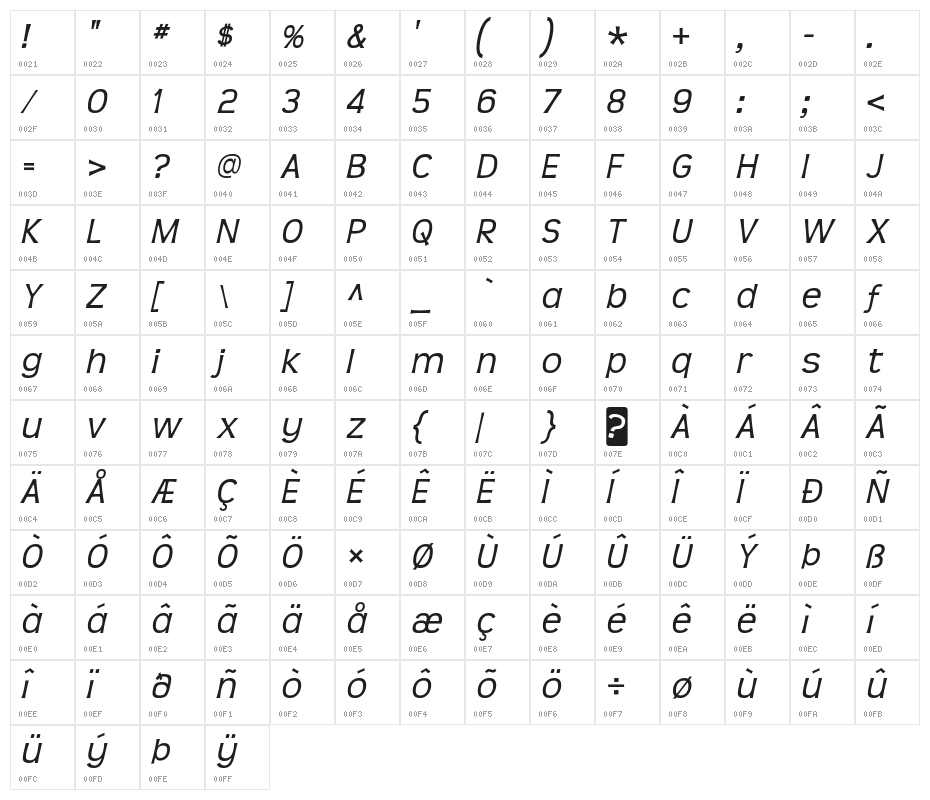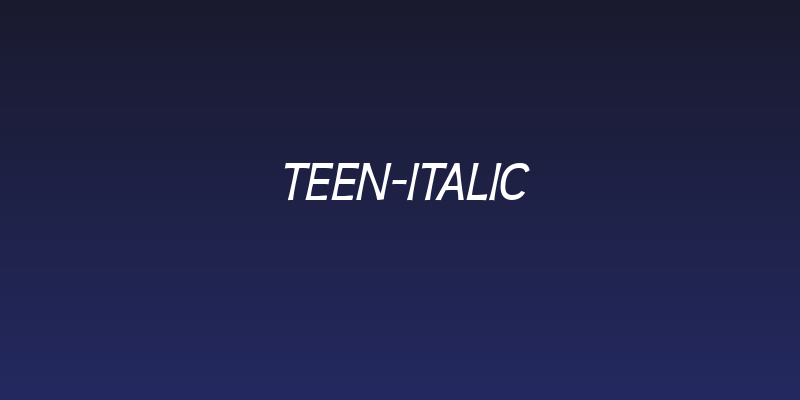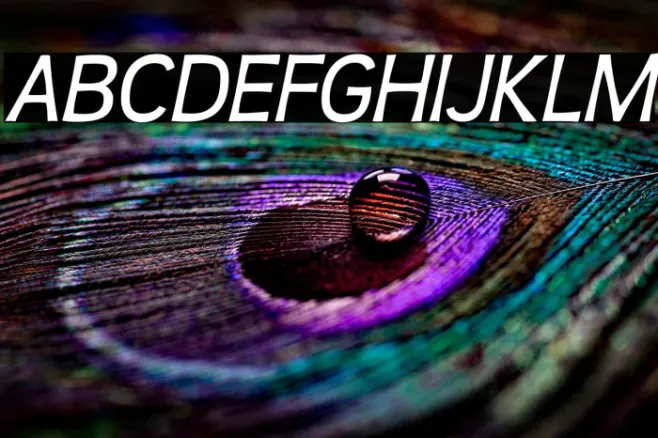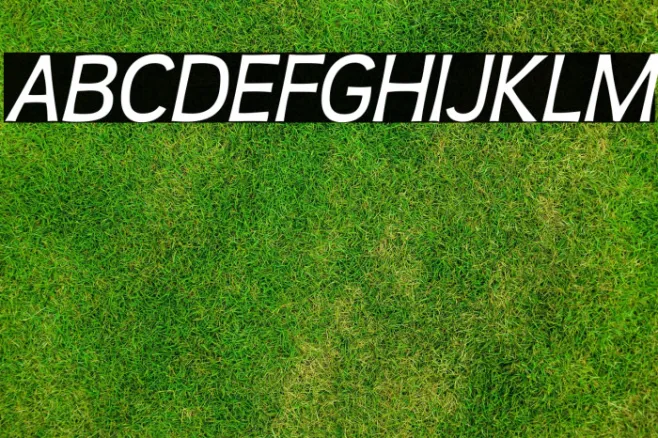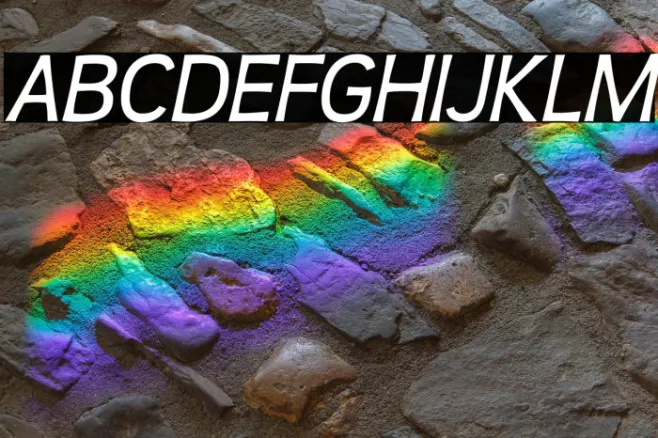
Teen-Italic Font
Teen-Italic Description
This font features a sleek, italicized design that exudes a modern and dynamic feel. The characters are slightly slanted, giving a sense of motion and fluidity. The strokes are uniform and consistent, contributing to a clean and professional appearance. The uppercase and lowercase letters maintain a harmonious balance, while the numerals are clear and easily distinguishable. Special characters are well-integrated, enhancing the font's versatility. Overall, this font is ideal for projects that require a contemporary and stylish touch.
| Proposed Projects | Ideal for branding, advertising, and editorial design projects that require a modern and stylish look. |